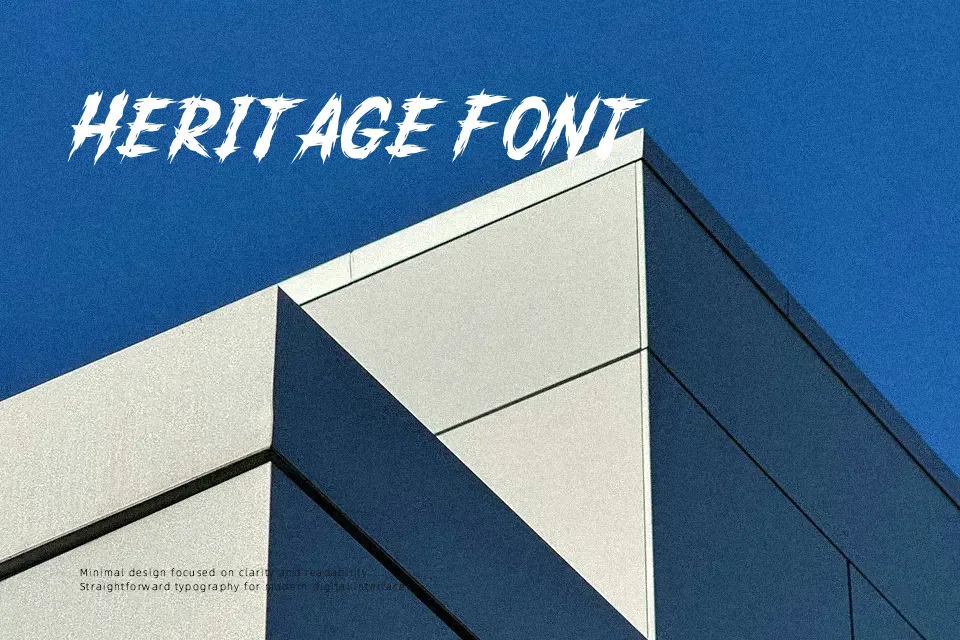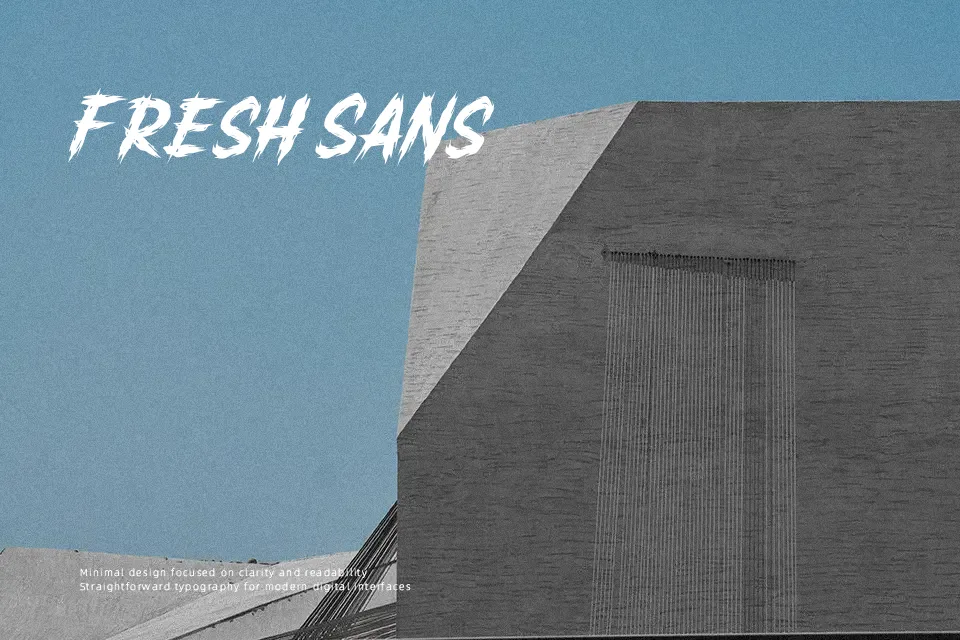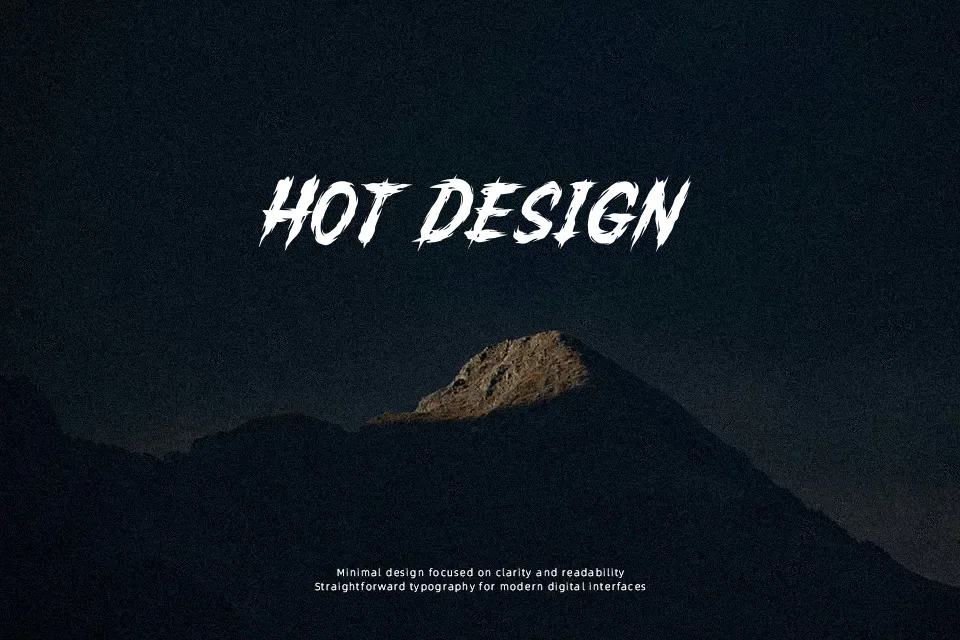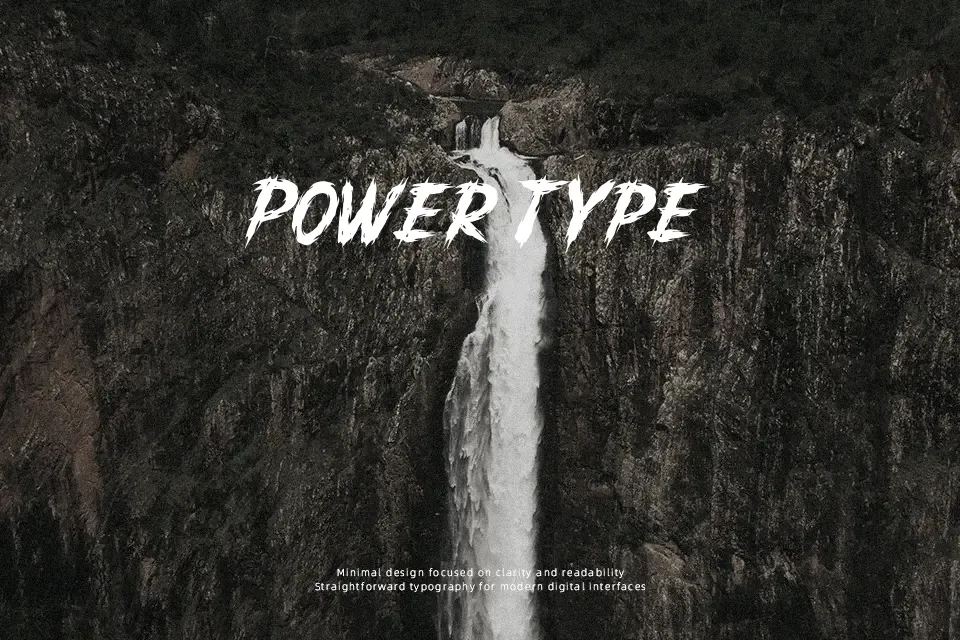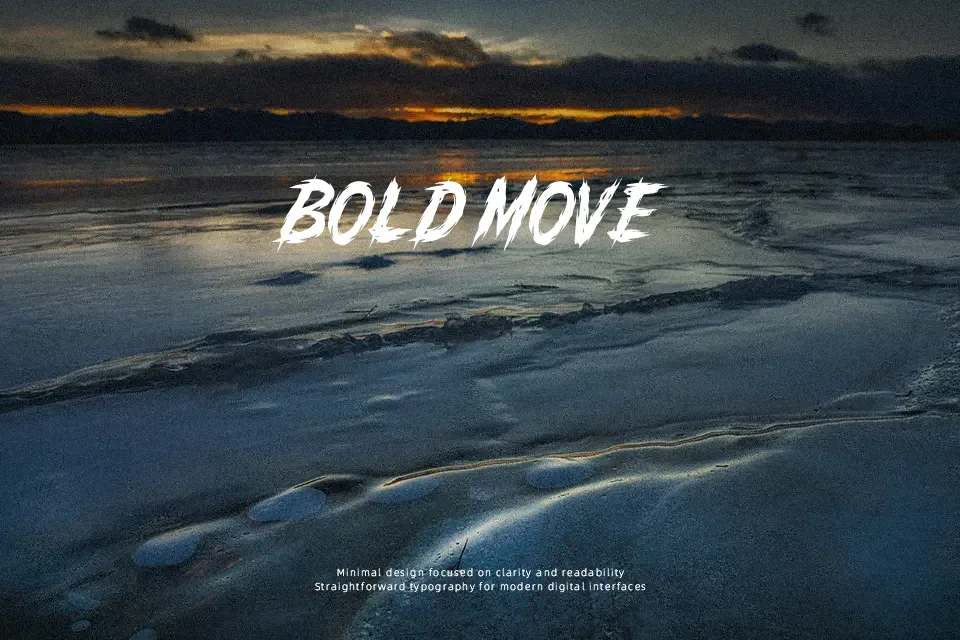
Scary Brusher Font
Defined by rapid dry-brush strokes and jagged contours, Scary Brusher Font introduces a raw, visceral aesthetic suited for high-impact display settings. The uppercase and lowercase glyphs showcase deliberate unevenness, irregular edge distress, and energetic diagonal slants that establish an intense visual rhythm. Moderate character spacing prevents adjacent textures from colliding, maintaining distinct letter silhouettes across large banners and merchandise prints. However, the heavy textural noise and inconsistent stroke weights severely compromise legibility at small sizes, making the typeface less suitable for continuous paragraphs or compact user interface labels. The design functions most effectively when given ample canvas space in bold horror-themed headlines and striking event flyers.
Best For: horror movie titles, Halloween event posters, streetwear graphic apparel, video game title screens
Not Ideal For: long body text paragraphs, mobile interface captions, corporate financial reports, technical data tables
Perfect for film, halloween, and headline, with a dramatic and brush style.